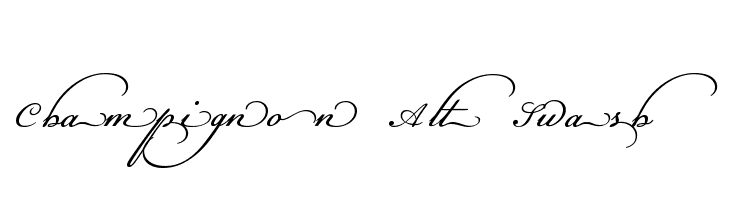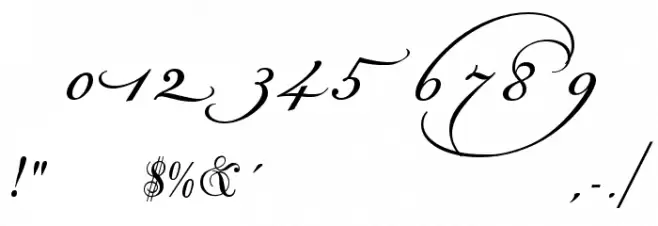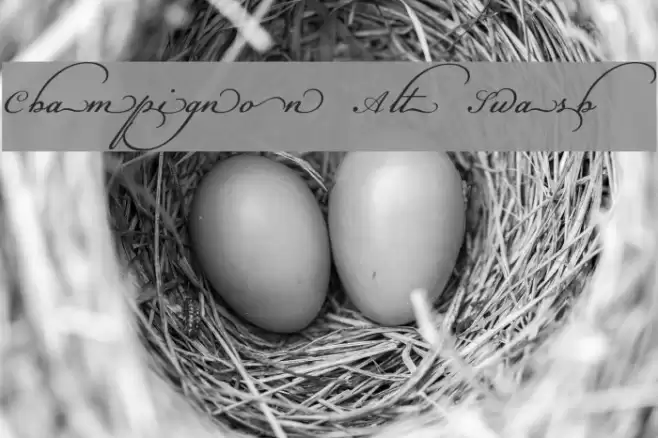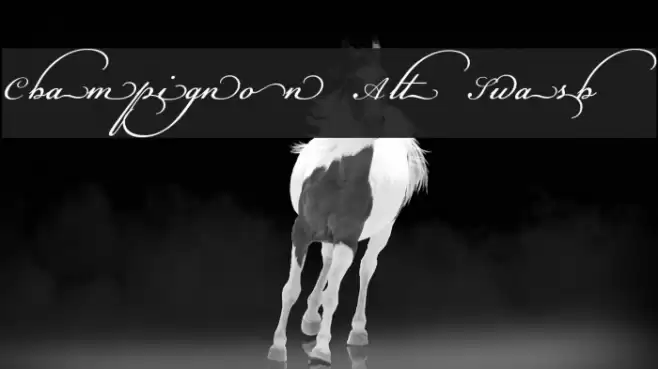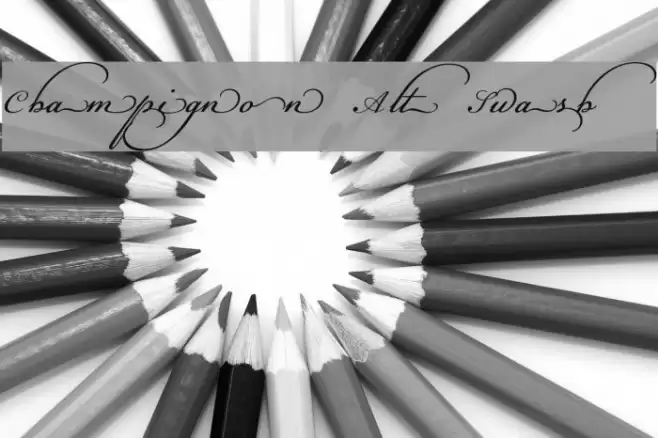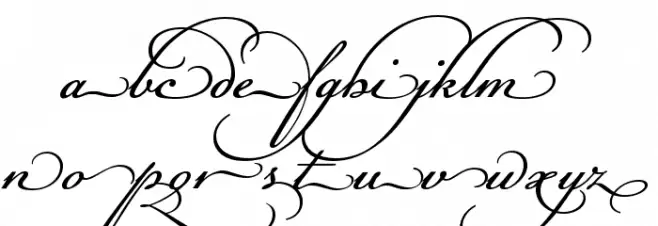
Champignon Alt Swash Font
Champignon Alt Swash Description
This elegant script font features flowing, cursive letters with elaborate swashes and flourishes, giving it a sophisticated and decorative appearance. The uppercase letters are particularly ornate, with intricate loops and curves that add a touch of luxury and refinement. The lowercase letters maintain a consistent style, with smooth, connected strokes that enhance readability while retaining an artistic flair. Numbers and special characters are designed to match the overall aesthetic, ensuring a cohesive look across all elements. This font is ideal for projects that require a touch of elegance and class.
| Use Case | Logos, Invitations, Decorative text |
| Proposed Projects | Wedding invitations, luxury branding, elegant stationery, high-end product packaging, and decorative headlines. |